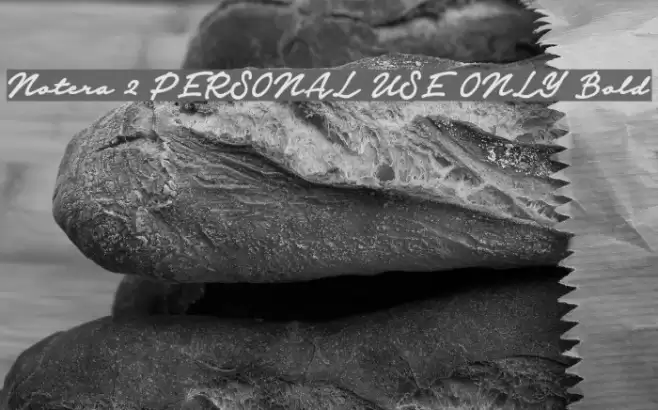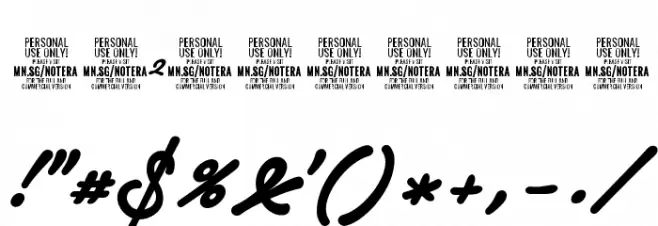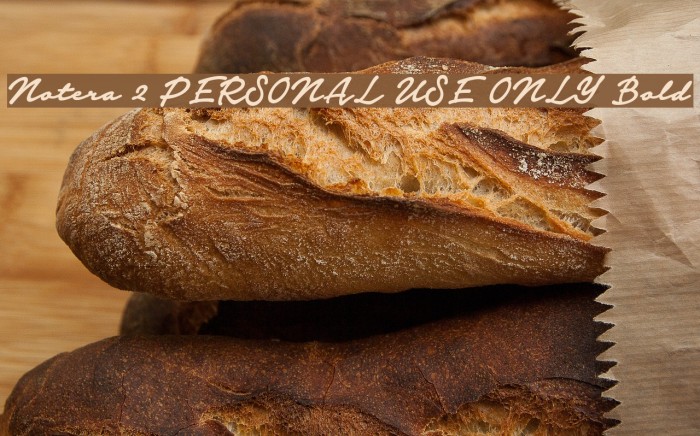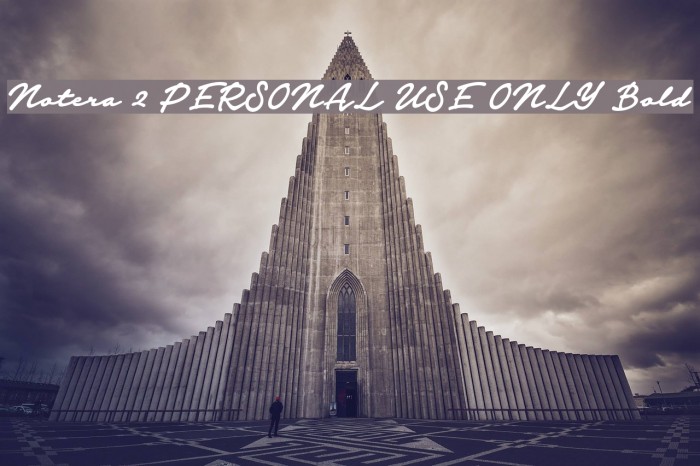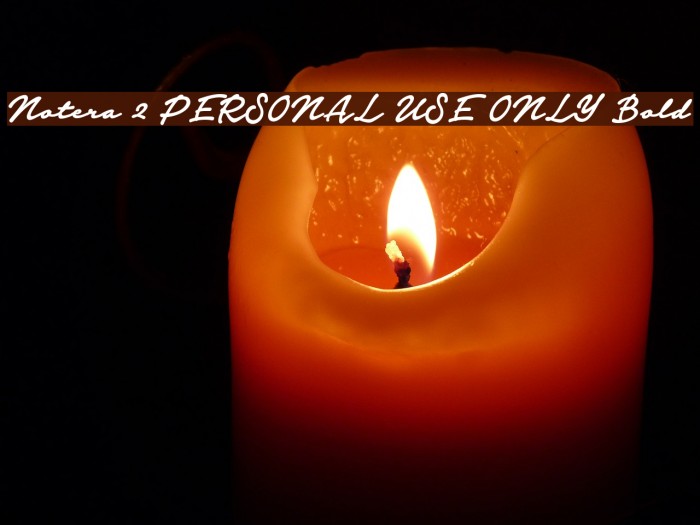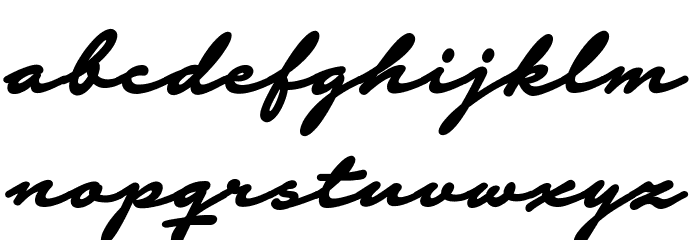
Notera 2 PERSONAL USE ONLY Bold Font
Notera 2 PERSONAL USE ONLY Bold Description
This font features a dynamic and fluid script style, characterized by its bold and expressive strokes. The letters are interconnected, creating a seamless flow that mimics natural handwriting. The uppercase letters are slightly more formal, while the lowercase letters exhibit a more casual and relaxed appearance. The font maintains a consistent thickness throughout, giving it a strong presence. The special characters are designed to match the overall style, ensuring a cohesive look across all text elements.
A bold, fluid script font with interconnected letters and a strong presence from Uncategorized fonts.
- Proposed Projects: Ideal for personal branding, invitations, greeting cards, and artistic projects where a handwritten touch is desired.
- Use Case: Logos, Invitations, Artistic projects